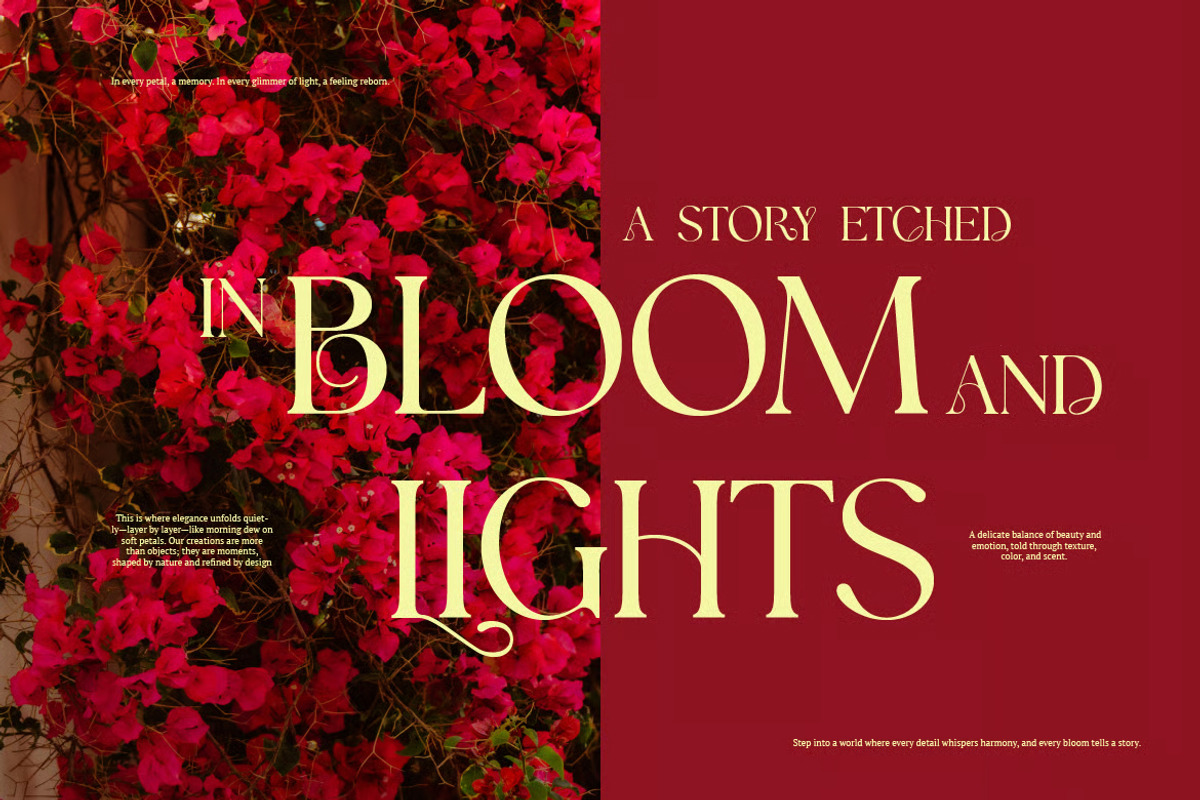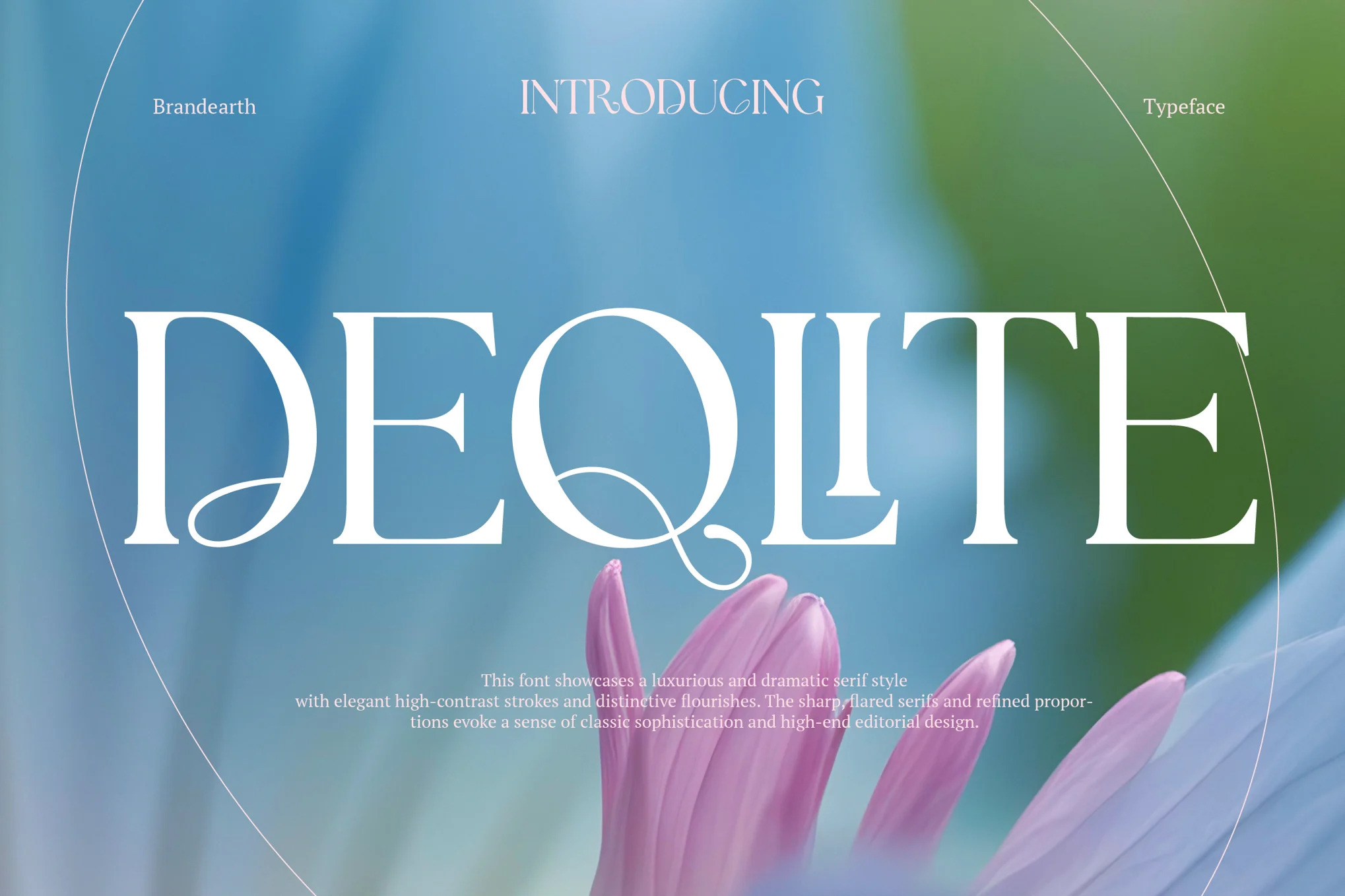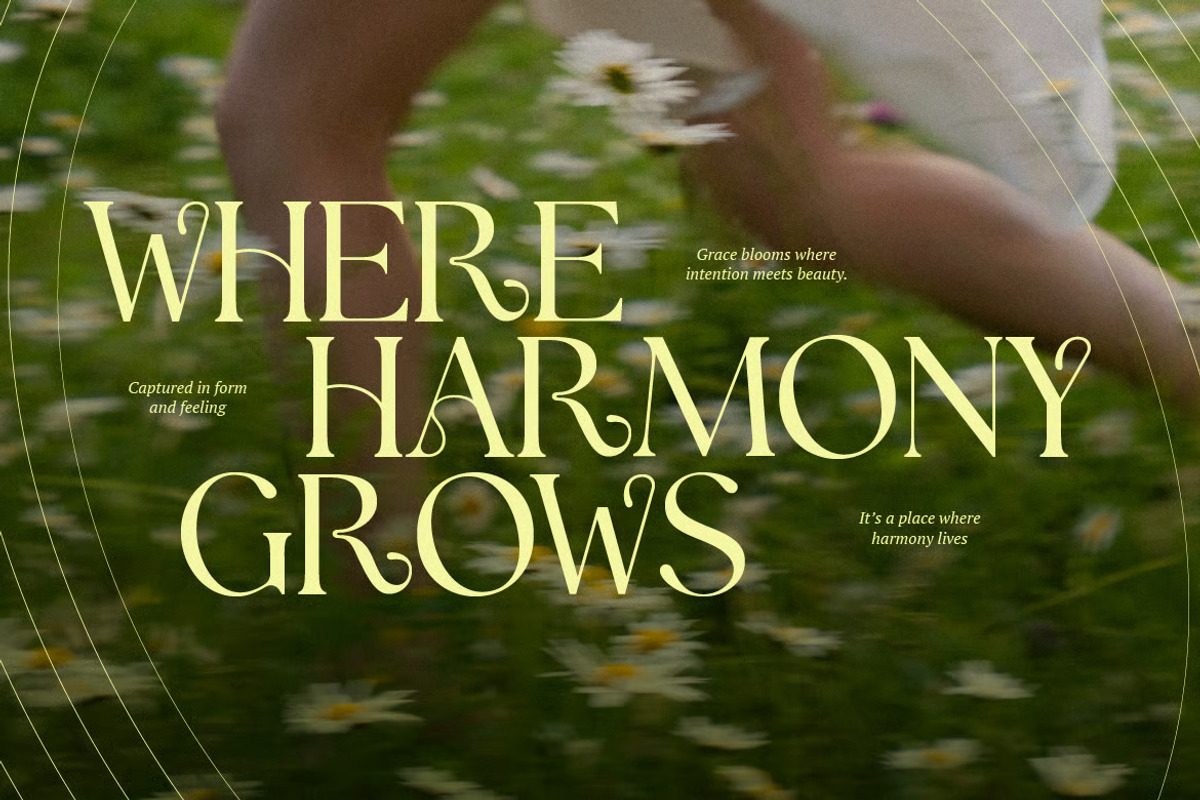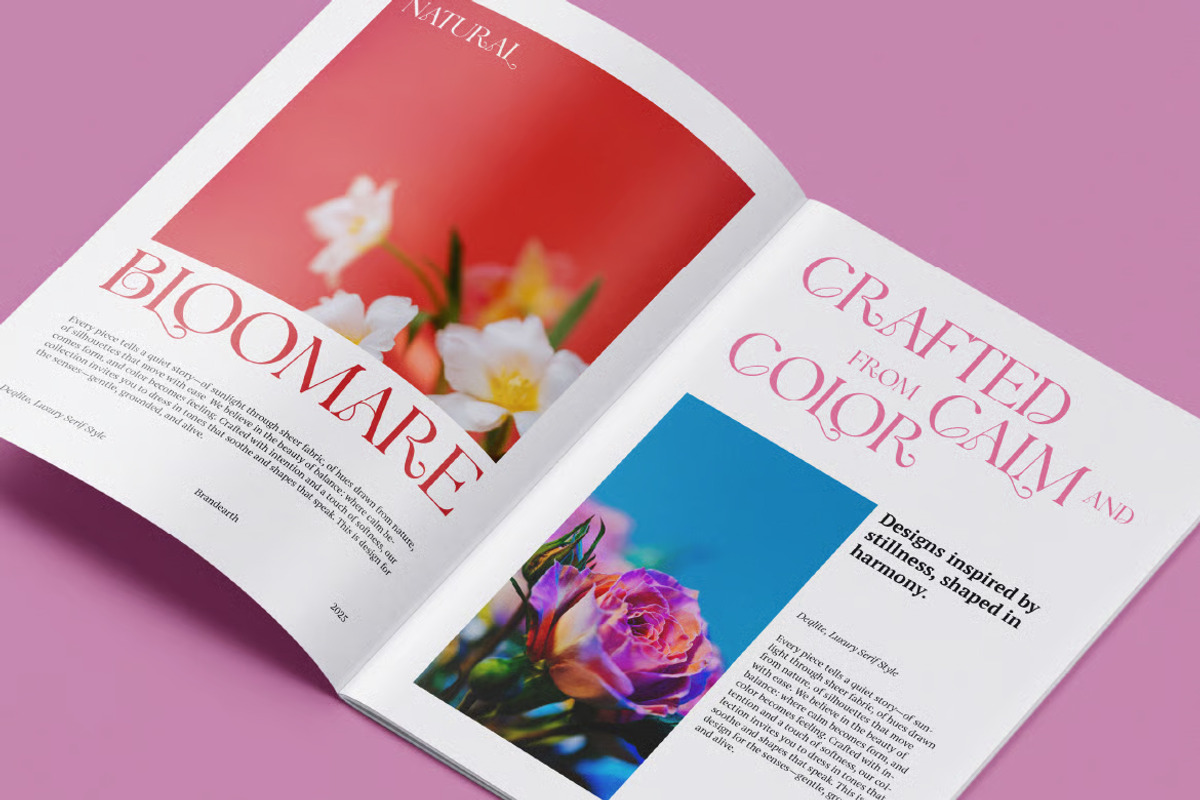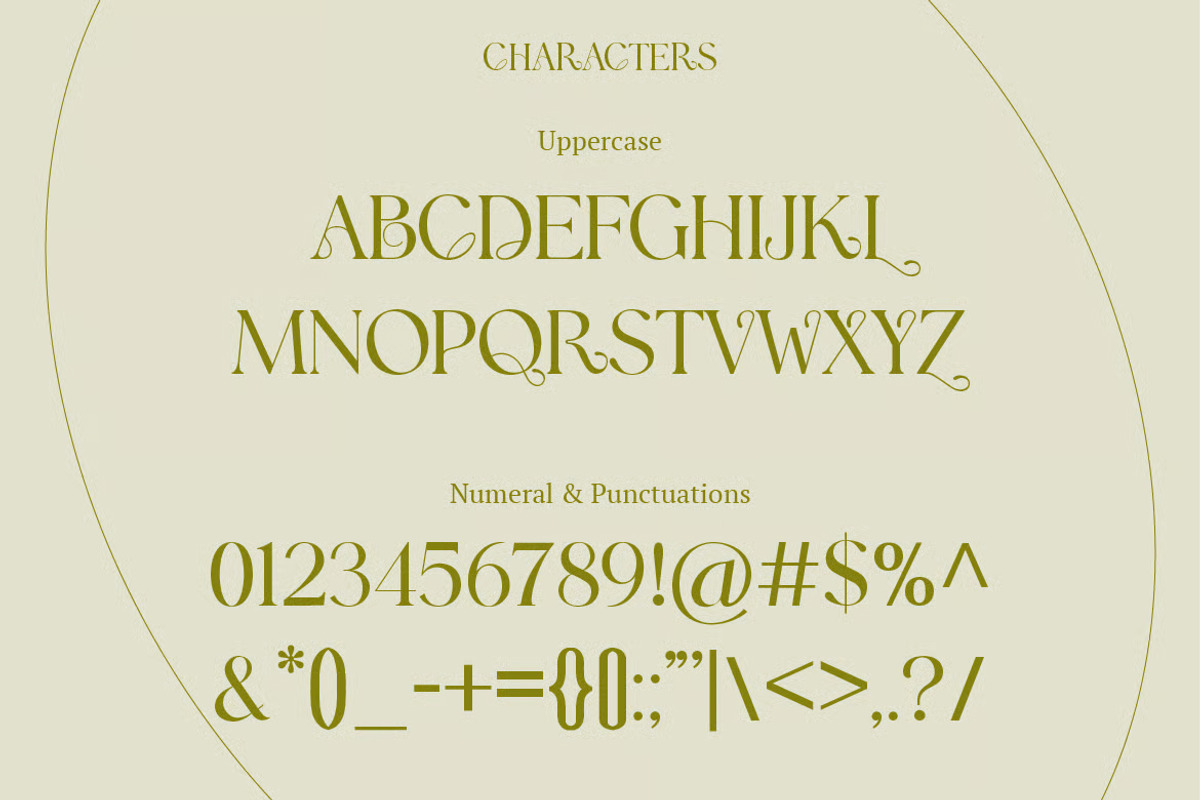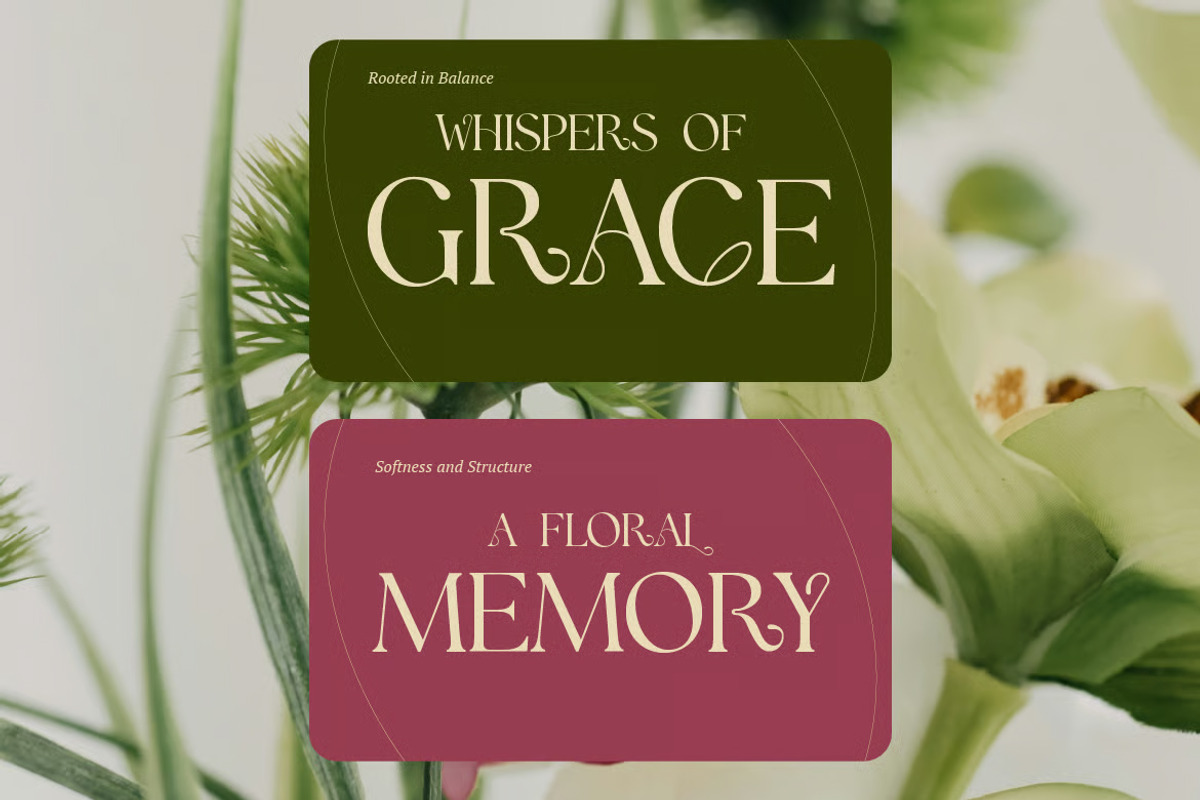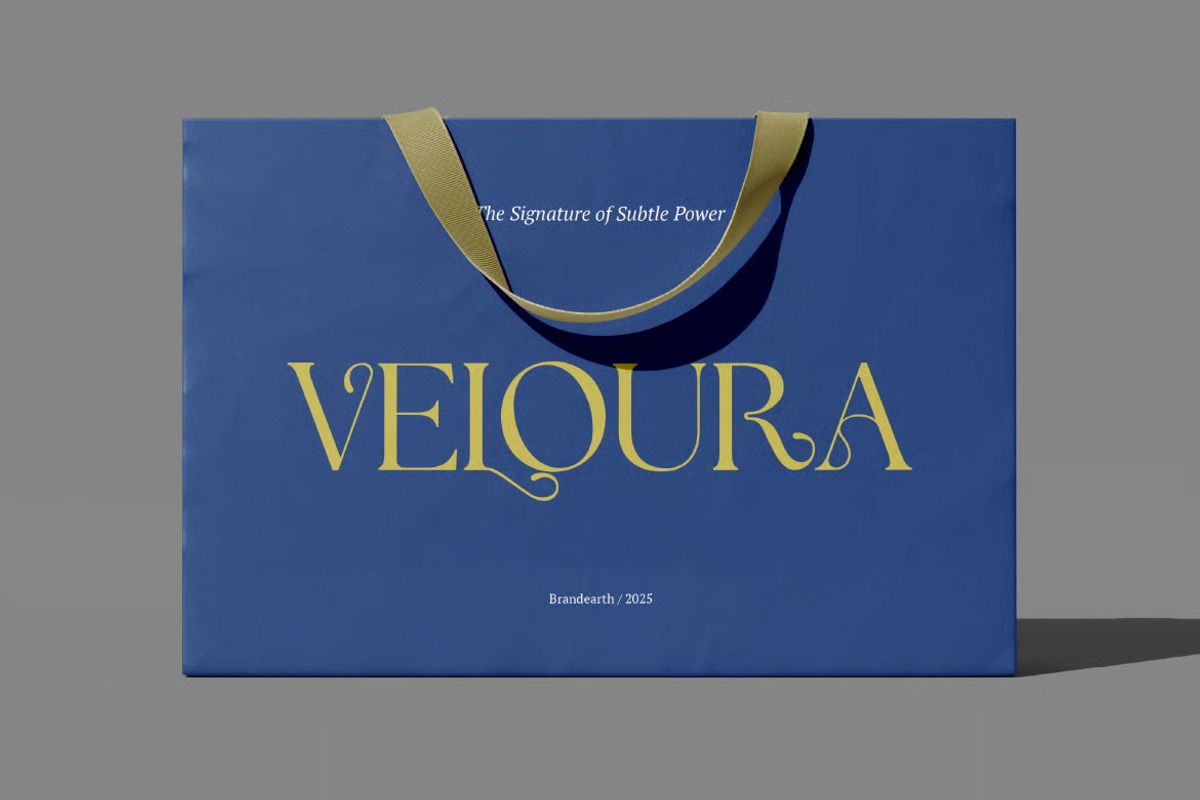
Deqlite - Luxury Serif Typeface
Deqlite is a high-contrast serif typeface that blends classical proportions with expressive flourishes and dramatic curves. Each letterform is crafted with precision, featuring delicate terminals and sweeping strokes that embody refined beauty. With its balance of strength and elegance, Deqlite is ideal for designers seeking a typeface that exudes luxury, grace, and timeless editorial charm. From sharp serifs to ornate swashes, this typeface lends a sophisticated voice to any visual story — whether you're designing for fashion, floral branding, premium packaging, or poetic publications.
Deqlite is perfect for high-contrast serif typography, expressive branding, and timeless editorial visuals. It fits seamlessly into floral packaging, luxury wedding invitations, poetic branding, fashion magazines, and boutique identity design. Its ornate flair also enhances perfume labels, fine jewelry branding, artistic posters, and upscale stationery. Deqlite can be used in storytelling-focused campaigns, romantic visuals, and cinematic design aesthetics. Its graceful forms and expressive details make it ideal for projects that require a blend of delicate sophistication and visual drama.
Main Features
Numeral & Punctuations
Suitable For: luxury branding, editorial layouts, magazine headlines, fashion and beauty packaging, wedding invitations, boutique logos, perfume and cosmetics labels, high-end hospitality signage, art gallery collateral, monogram design, jewelry branding, upscale social media graphics, and sophisticated print campaigns.